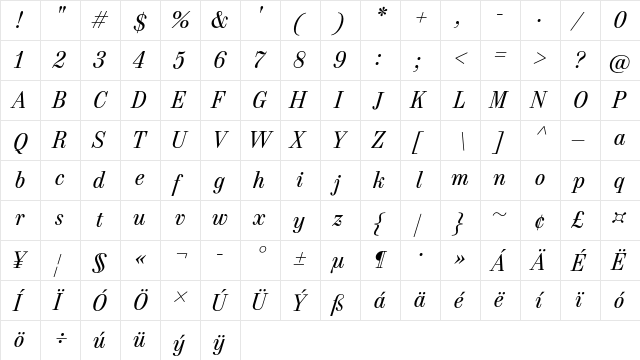
Heneczek Italic
| Designer | D. Langosz |
Design Context for Heneczek Typeface
Heneczek is a composed and adaptable typeface that performs quietly and consistently across a wide range of design contexts. The slanted form adds forward momentum and visual energy.
Pro Tip: Try Heneczek for annotation and caption copy alongside an upright companion — the contrast in angle creates a dynamic but ordered typographic system.